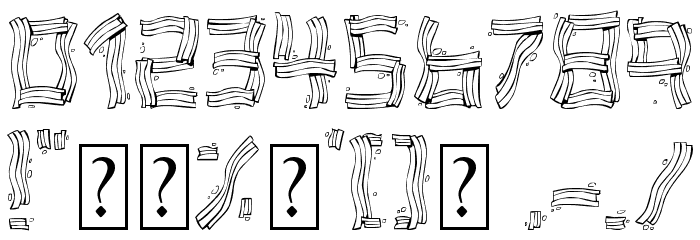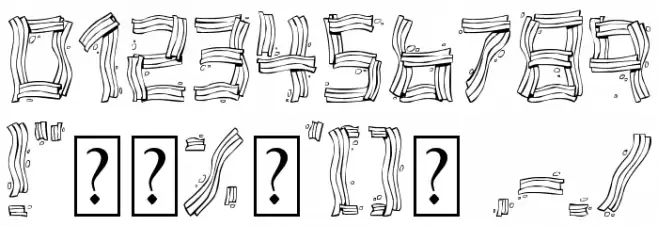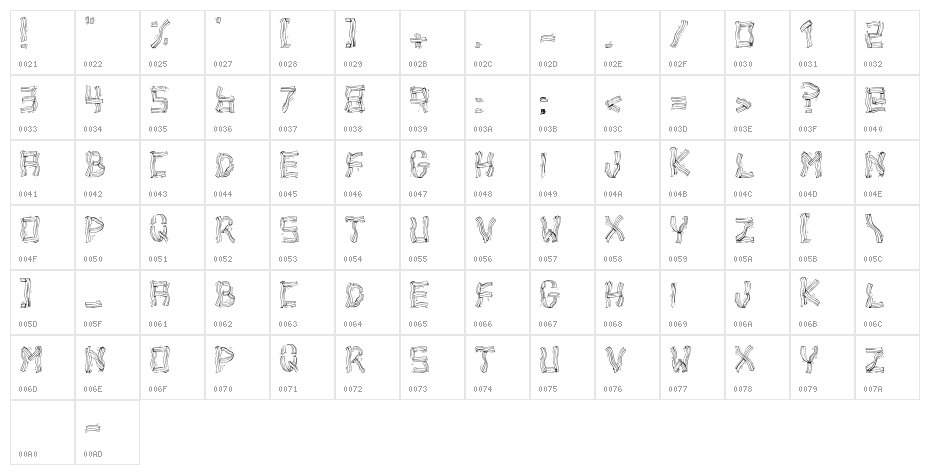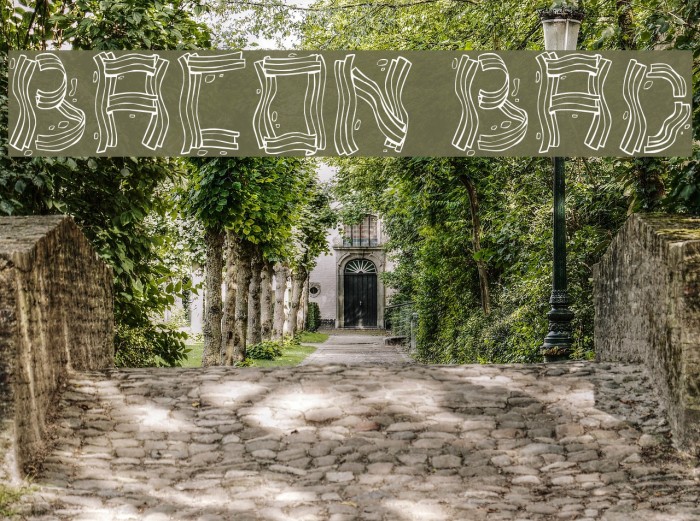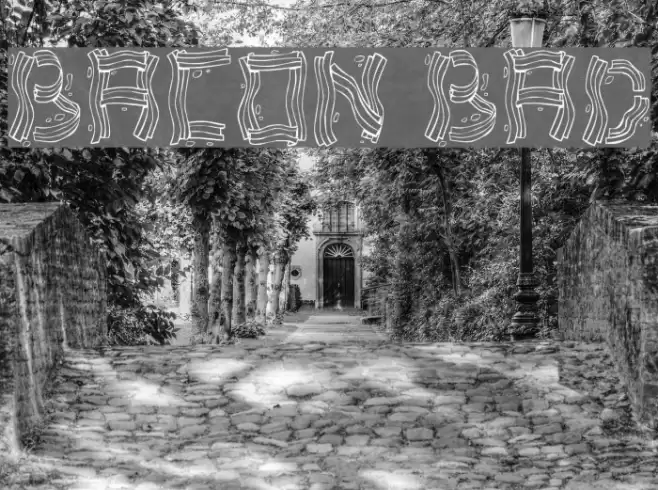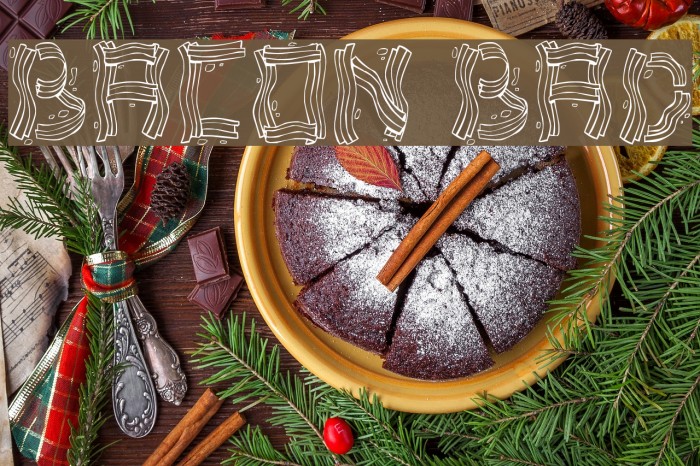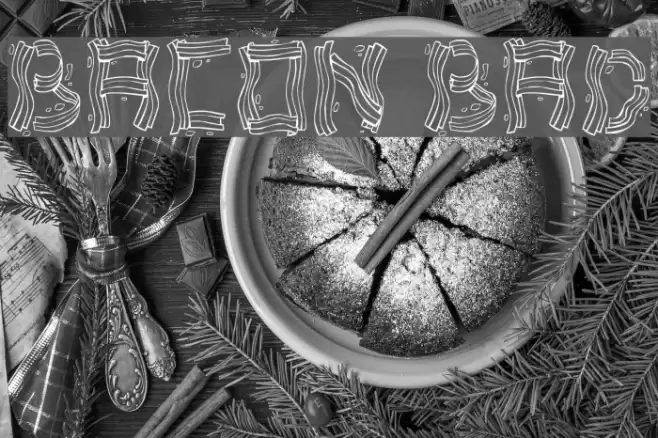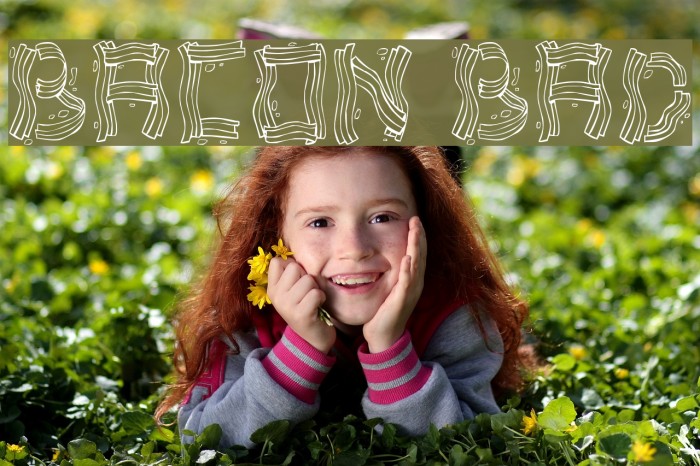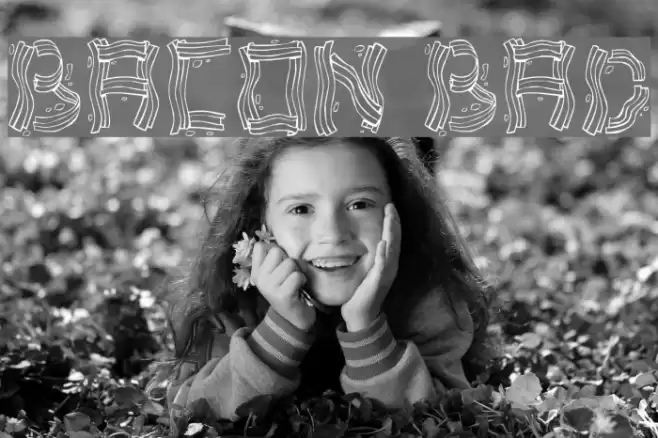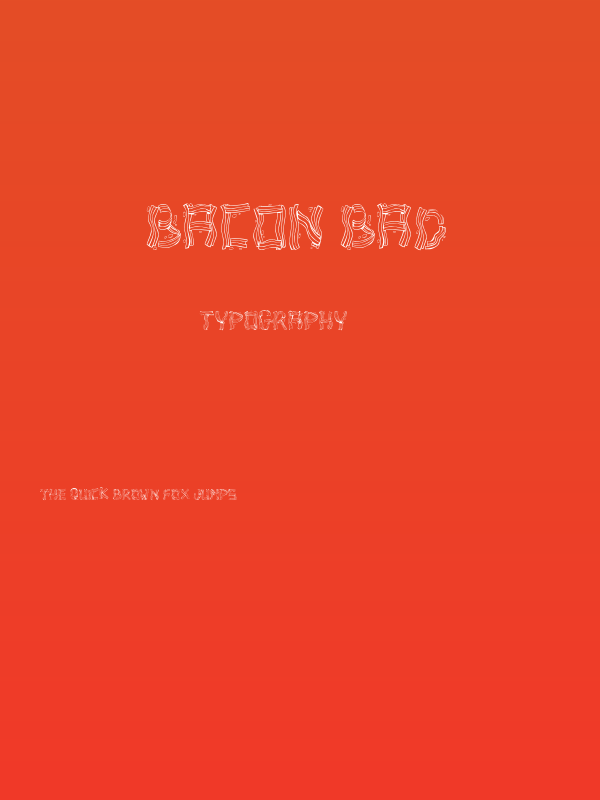
Bacon Bad Font
Bacon Bad Description
This playful and whimsical font features letters that resemble strips of bacon, with wavy lines and a textured appearance that mimics the look of cooked bacon. Each character is uniquely designed with a hand-drawn style, adding a quirky and humorous touch. The font is highly decorative, making it ideal for projects that require a fun and lighthearted aesthetic. The characters are bold and have a consistent width, with moderate spacing between them, ensuring readability while maintaining the playful theme. The font includes both uppercase and lowercase letters, numbers, and a selection of special characters, all designed in the same distinctive bacon style.
| Use Case | Logos, Posters, Branding |
| Proposed Projects | Ideal for food-related branding, playful posters, children's books, and novelty items. |